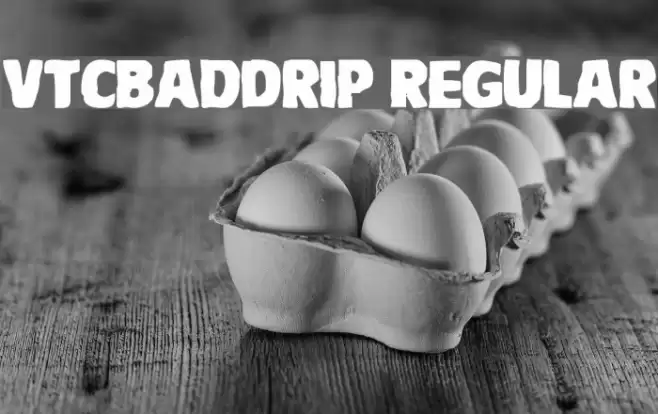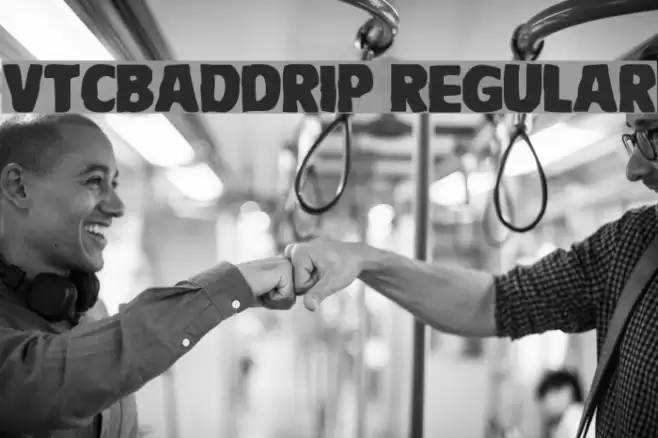
VTCBadDrip Regular Font
VTCBadDrip Regular Description
This font features a bold and playful design with a distinctly irregular and hand-drawn appearance. The characters are thick and heavy, with a slightly uneven baseline that adds to its quirky and informal style. The strokes are rounded and full, giving it a friendly and approachable look. The font's unique style makes it stand out, with each letter having a slightly different shape and size, contributing to its dynamic and energetic feel. It is well-suited for creative and artistic projects where a bold statement is needed.
A bold, playful font with a hand-drawn, irregular style from Uncategorized fonts.